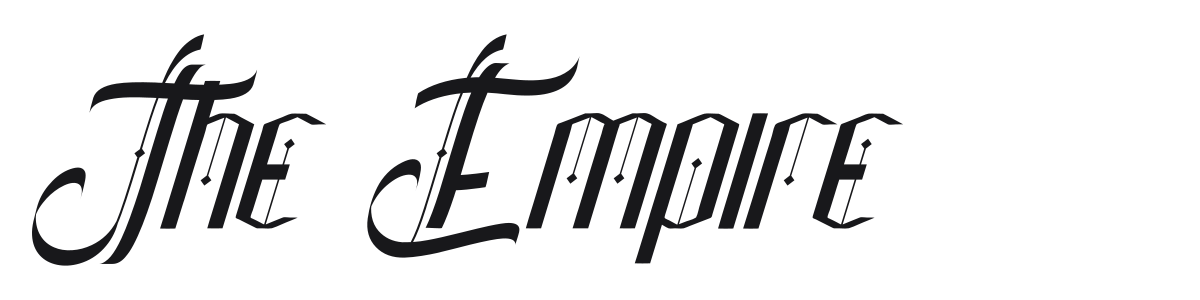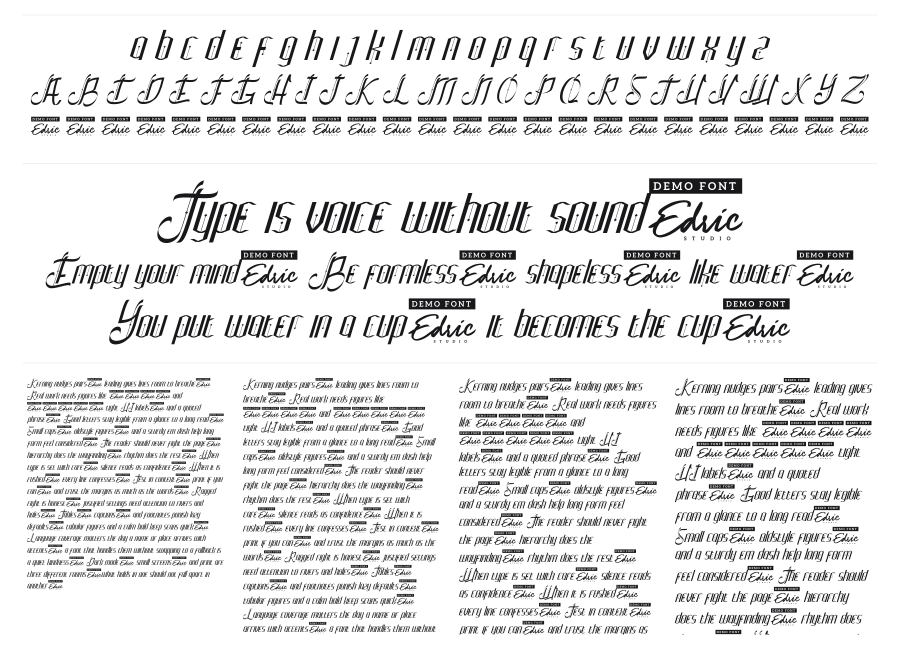
The Empire
The Empire is a gothic blackletter display font with a sharp, angular italic stance and striking inline diamond accents cut into the thick strokes. The high contrast between its heavy stems and razor-thin hairlines gives it a faceted, almost architectural presence. It reads as heraldic and cinematic, landing naturally in gaming titles, metal album art, and fantasy branding.